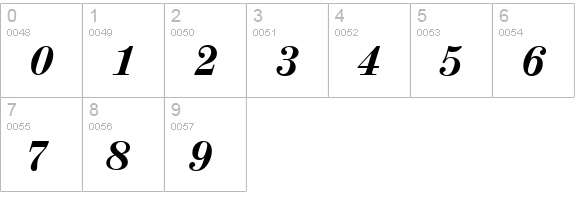
ValenciaSerial-Xbold-Italic is a distinctive, italic variant in the ValenciaSerial typeface family \xE2\x80\x94 well suited to design and typography projects.
ValenciaSerial-Xbold-Italic is a striking and elegant font that exudes sophistication and modernity. With its bold and italicized style, this font is perfect for adding a touch of flair to any design project. The sleek curves and sharp lines of ValenciaSerial-Xbold-Italic make it a versatile choice for both headers and body text. What sets ValenciaSerial-Xbold-Italic apart is that it is available for free download at FontsMarket.com. This means that you can easily access this stylish font without any cost, making it a valuable addition to your font library. Whether you're designing a website, creating marketing materials, or crafting a logo, ValenciaSerial-Xbold-Italic is sure to make a bold statement. Elevate your designs with this contemporary and eye-catching font today.